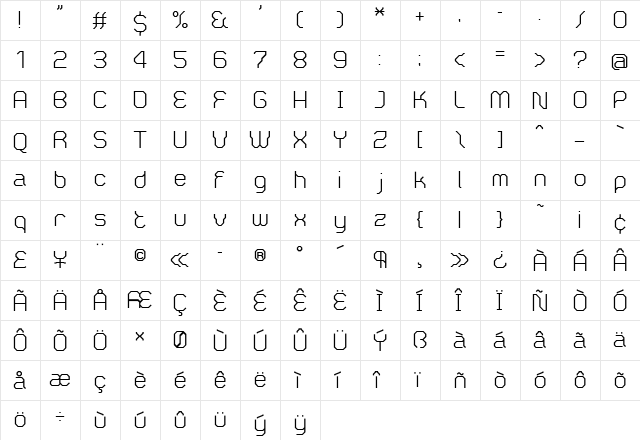
Zero Regular
Design Context for Zero Typeface
Zero takes a measured approach to typography — its balanced proportions and neutral character make it a reliable workhorse for both digital and print work.